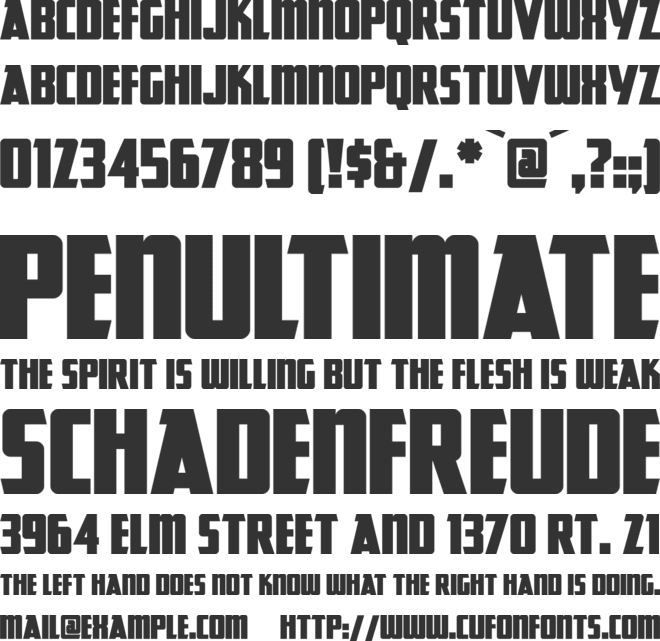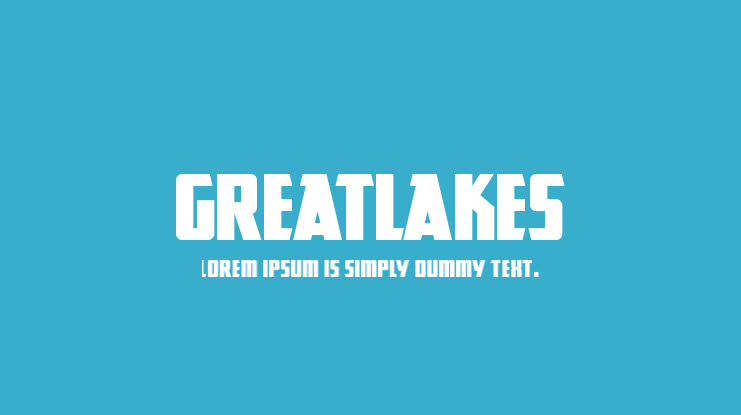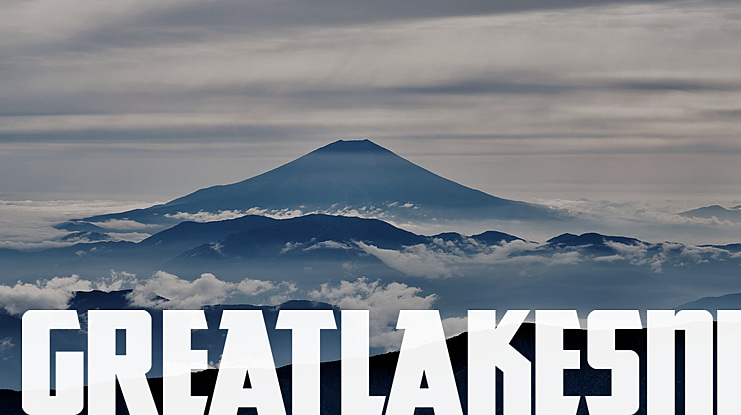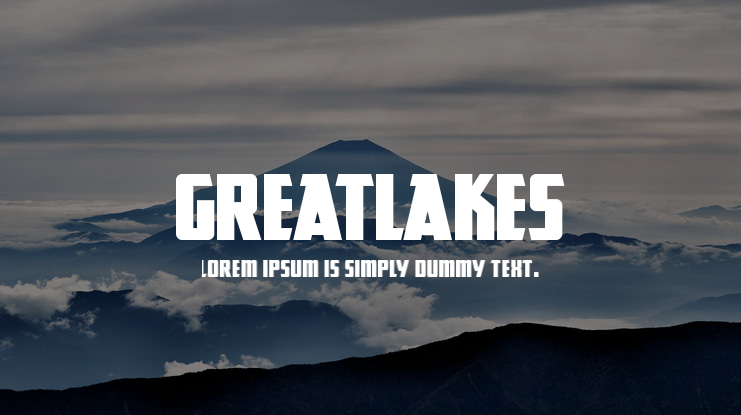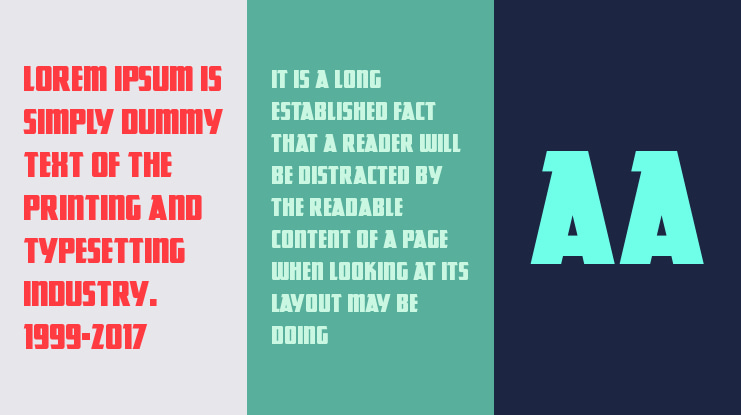
GreatLakes Font
A poster artist known simply as F provided the inspiration for this typeface. The 1935 poster was entitled “Cruise Canadian Pacific on the Great Lakes,” so the source of the font’s name should be no mystery. Its bold, compact coloring and snug fit make it suitable for attention-getting headlines.